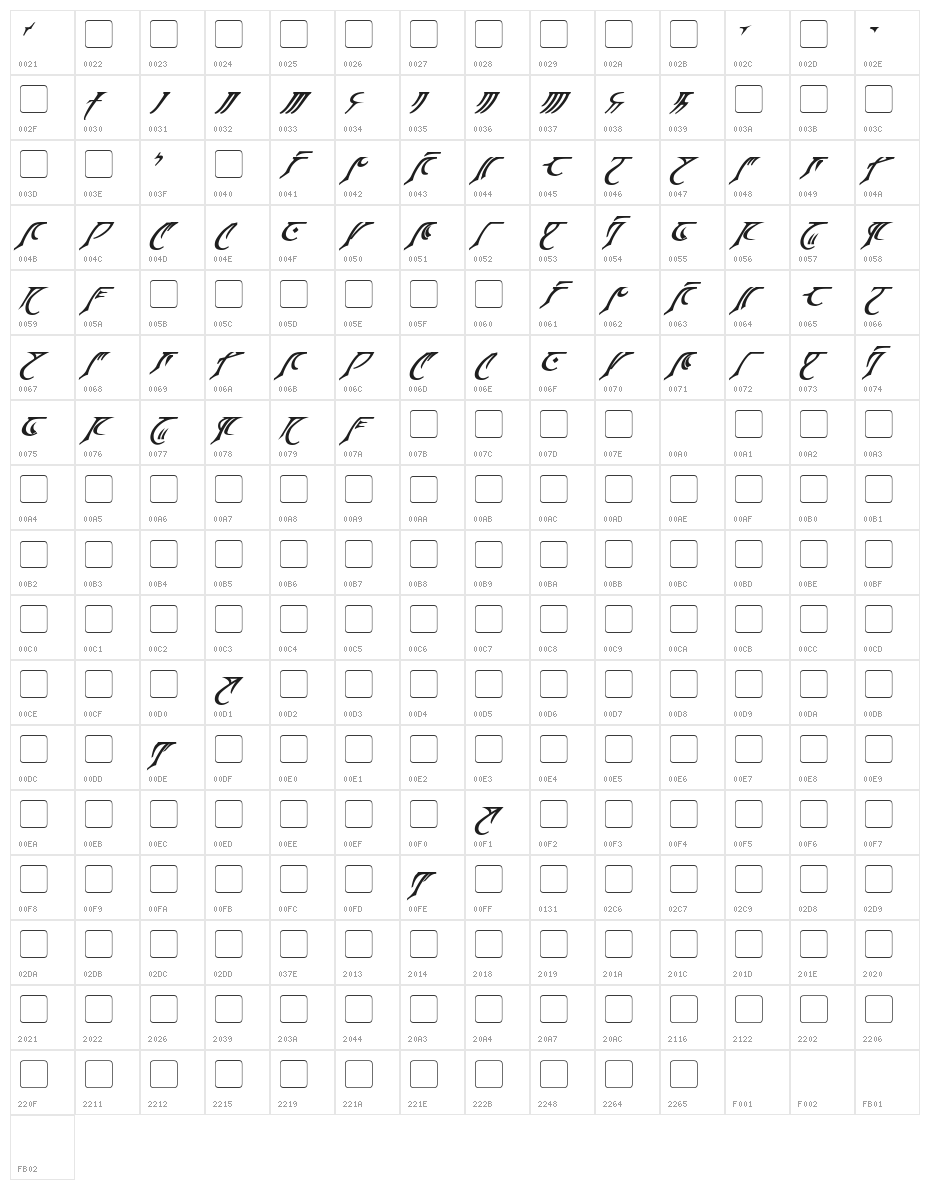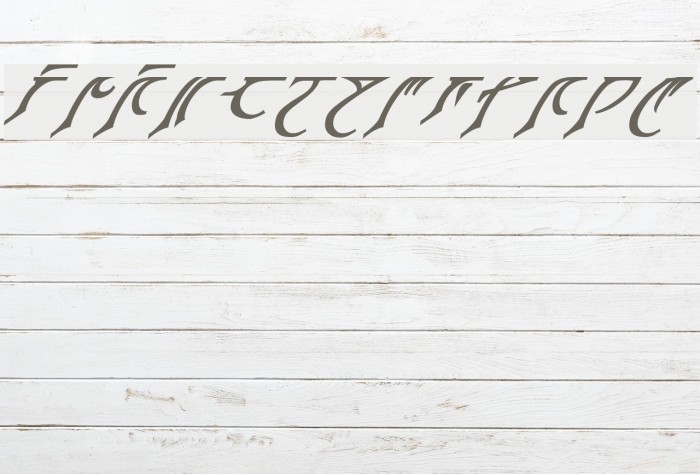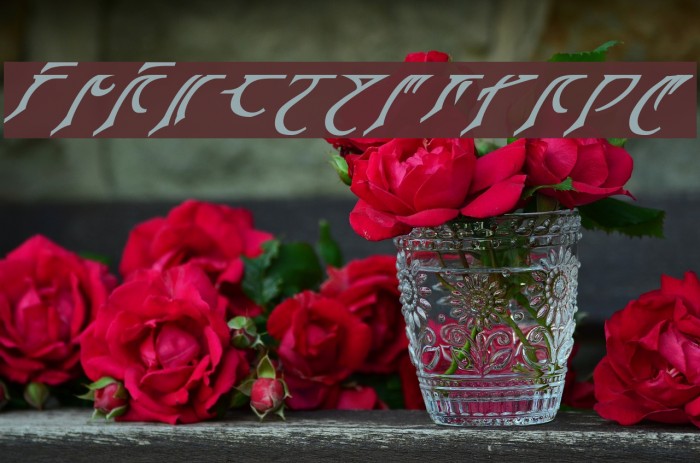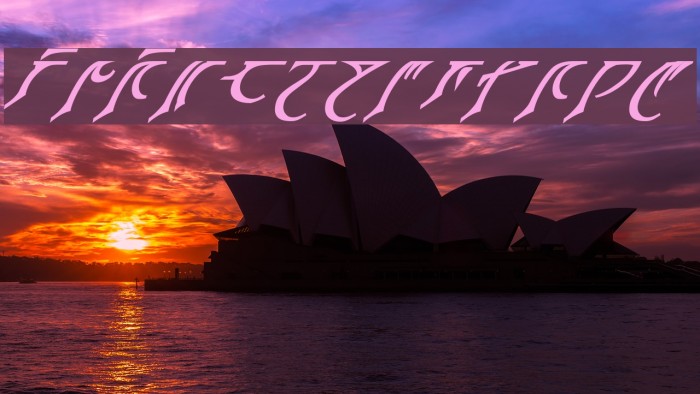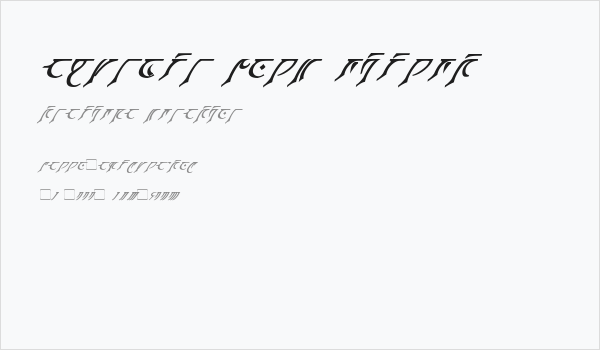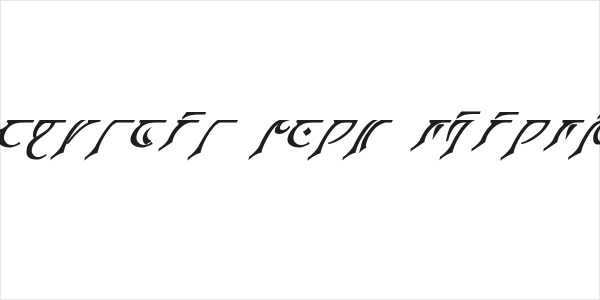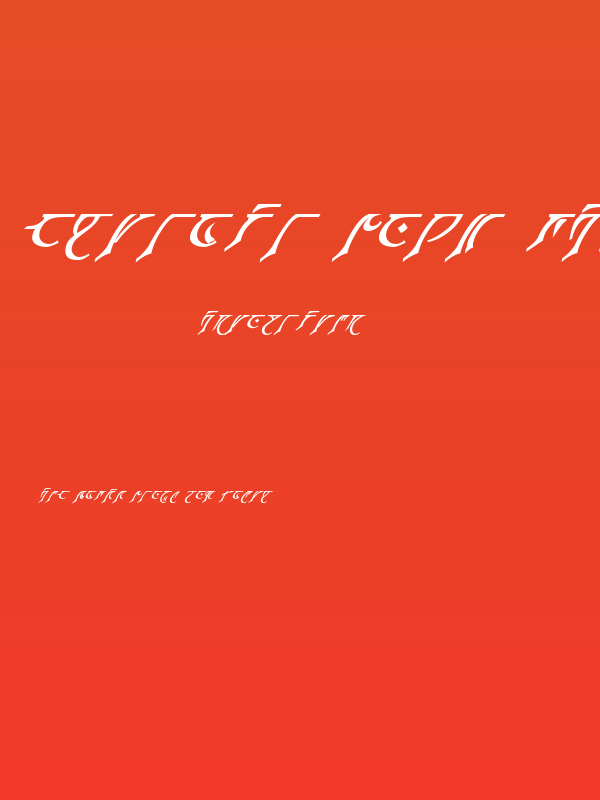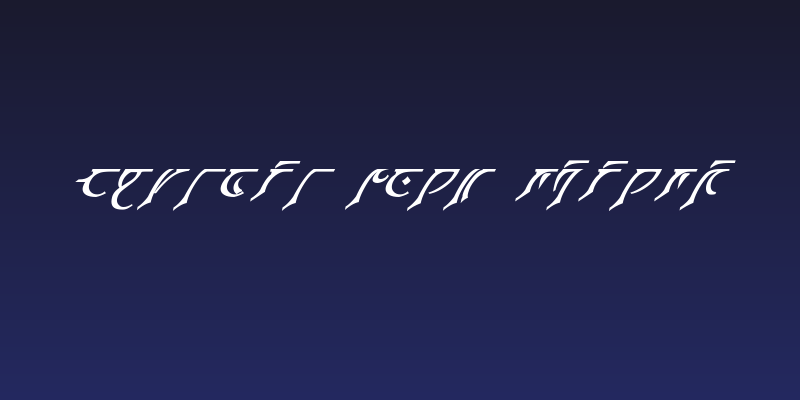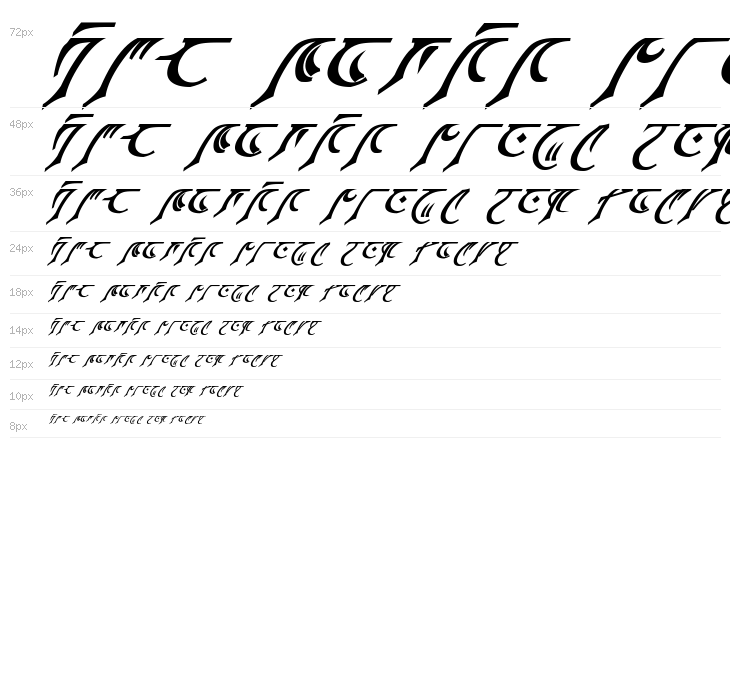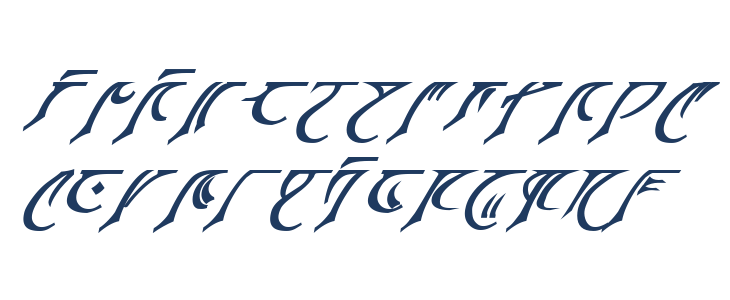
Espruar Bold Italic Font
Espruar Bold Italic Description
This font features a unique, decorative style with a distinct calligraphic flair. The characters are designed with sharp, angular strokes that give them a dynamic and flowing appearance. The bold and italic nature of the font adds to its dramatic effect, making it stand out with a sense of elegance and mystique. The uppercase and lowercase letters maintain a consistent style, with the uppercase letters exhibiting a slightly more pronounced flair. The numbers and special characters are crafted to match the overall aesthetic, ensuring a cohesive look across all elements. This font is ideal for projects that require a touch of fantasy or a medieval theme.
Proposed ProjectsPerfect for fantasy-themed projects, medieval event invitations, game design, or book covers.